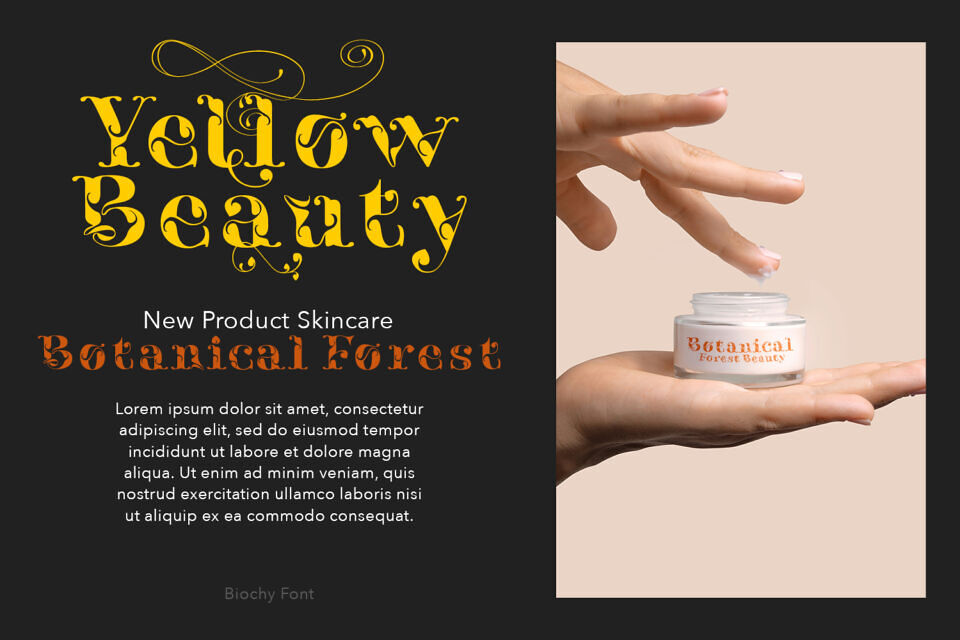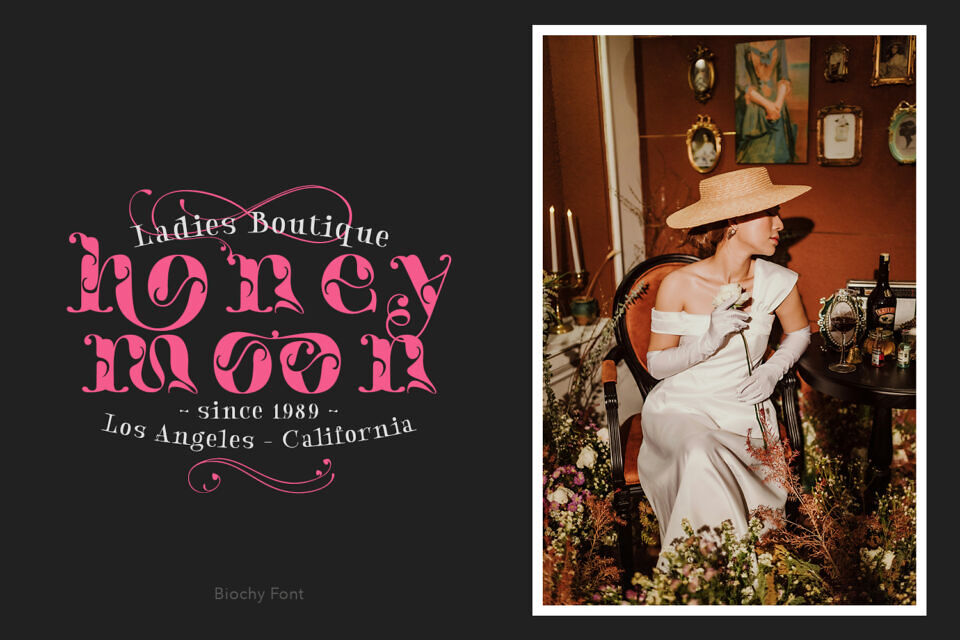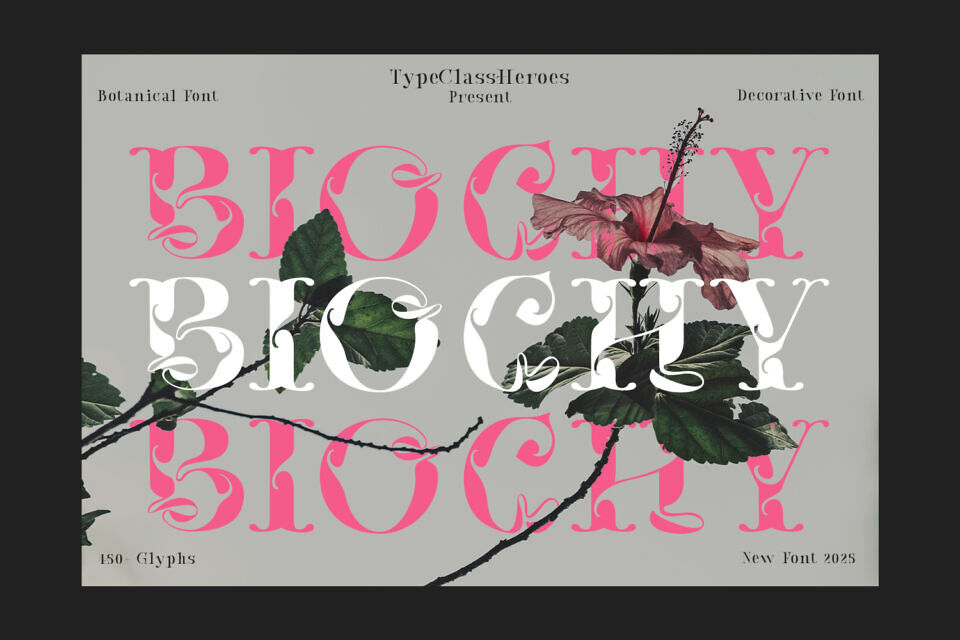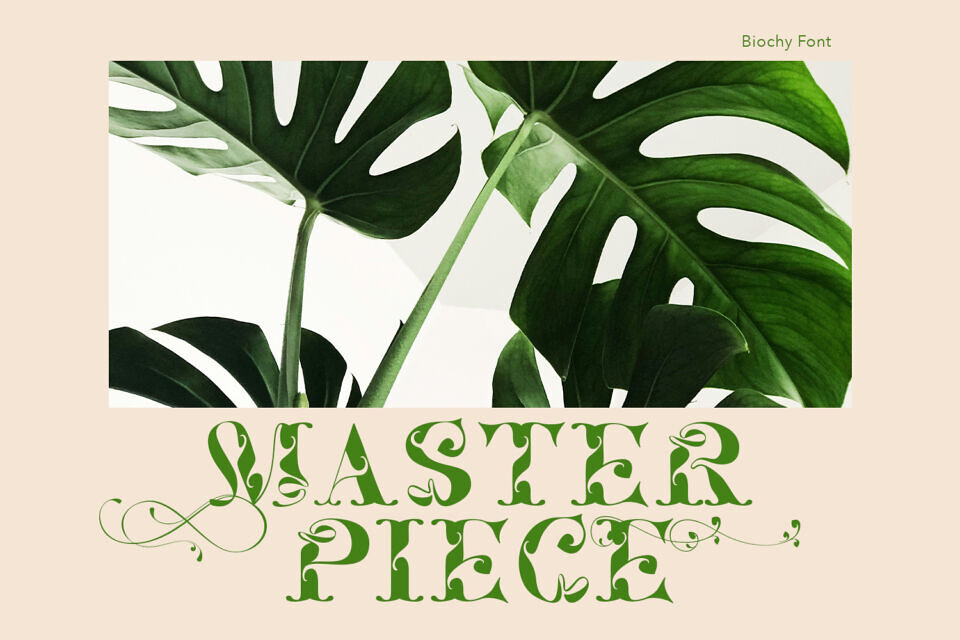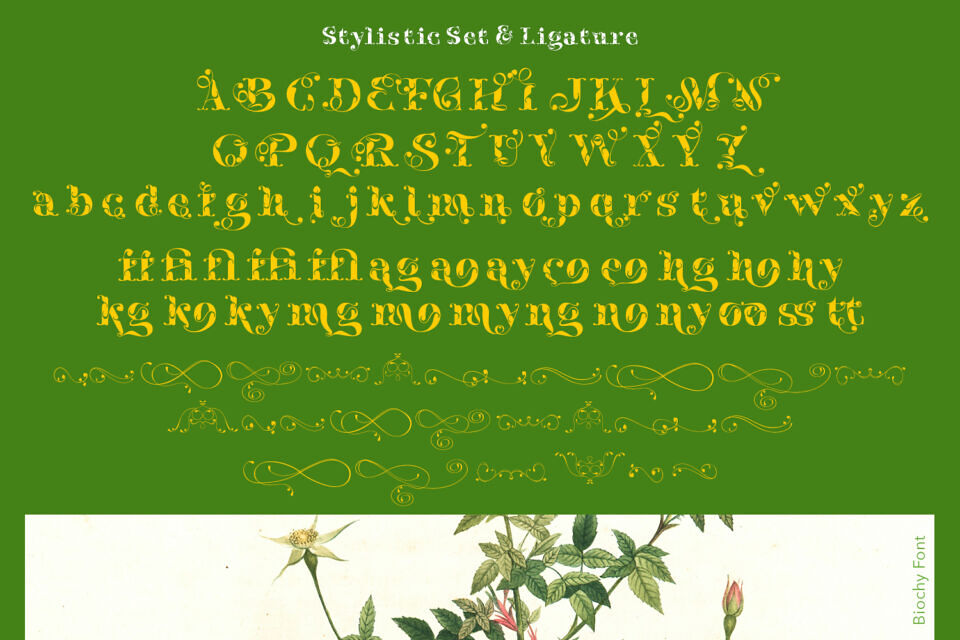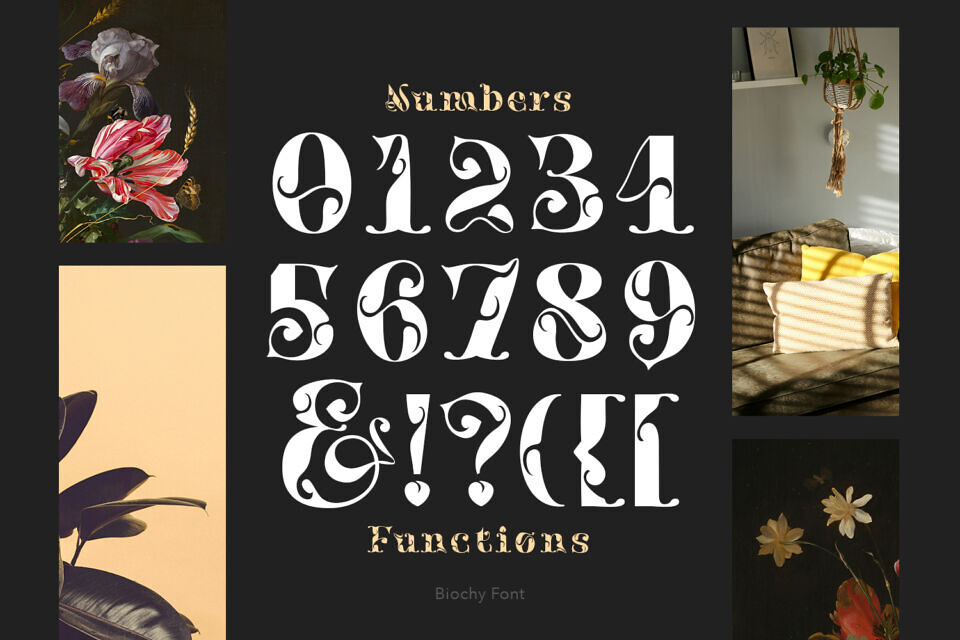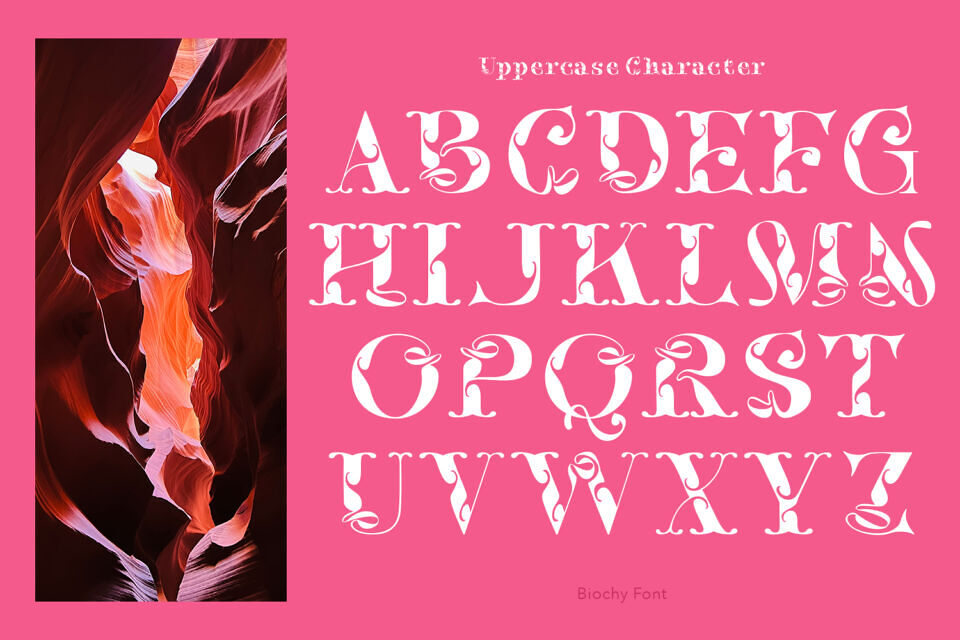
Biochy Font
Introducing Biochy, a luxury font features a natural botanical concept that will bring a unique style and a trendy look to your designs. Serif typeface with trending ligatures and special character, offering a harmonious balance between classic and pure design.
Suitable for various uses such as headers, titles, book cover, invitation, even for any design work that requires a luxury classic look.
Designed by: TypeClassHeroes (madeDeduk)